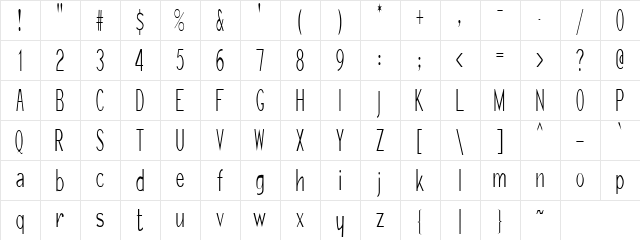
Girth Control Regular Font Preview
Girth Control Regular
Design Context for Girth Control Typeface
Girth Control offers clean, dependable letterforms without strong stylistic allegiance, making it a practical choice for designers who need flexibility.